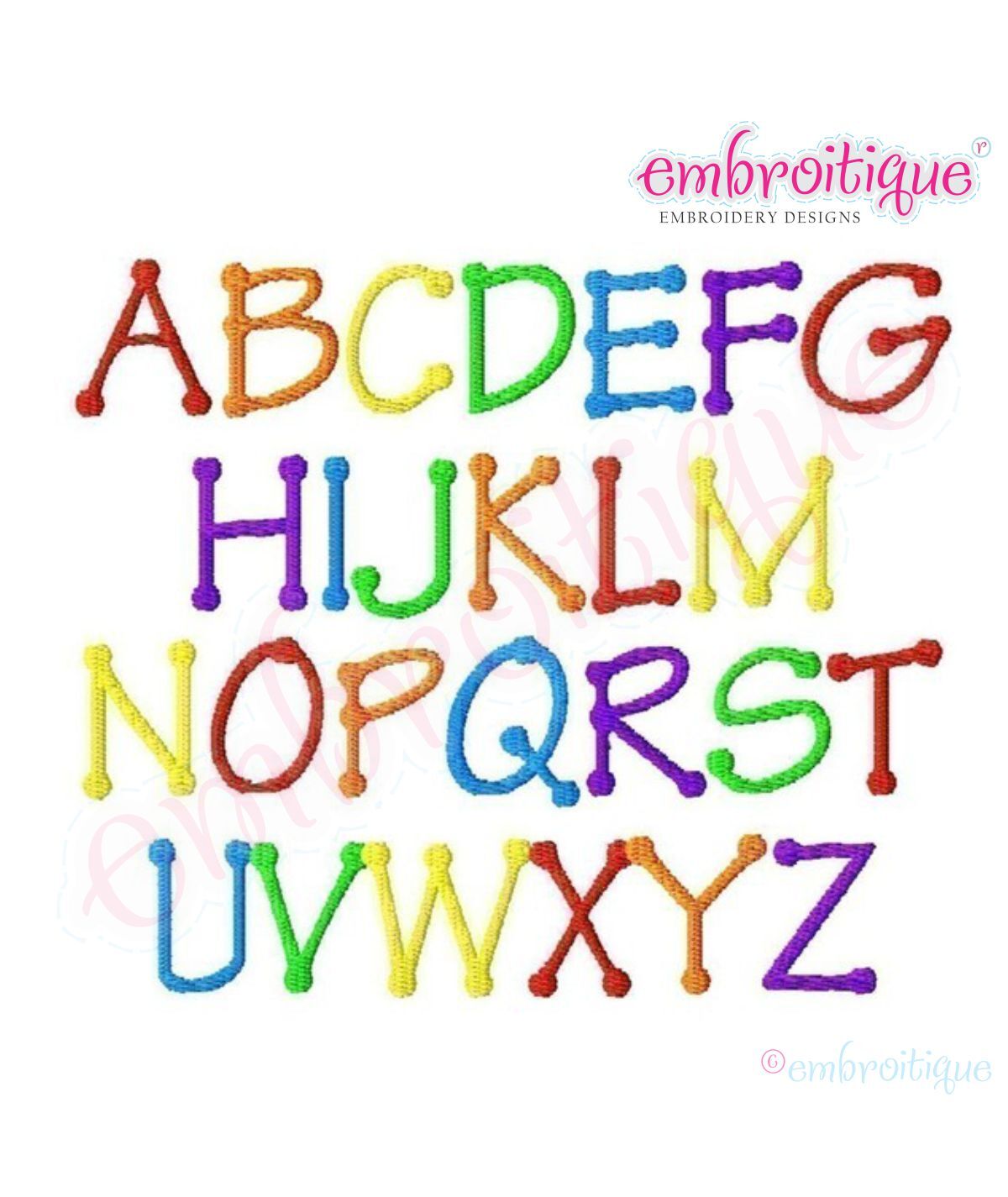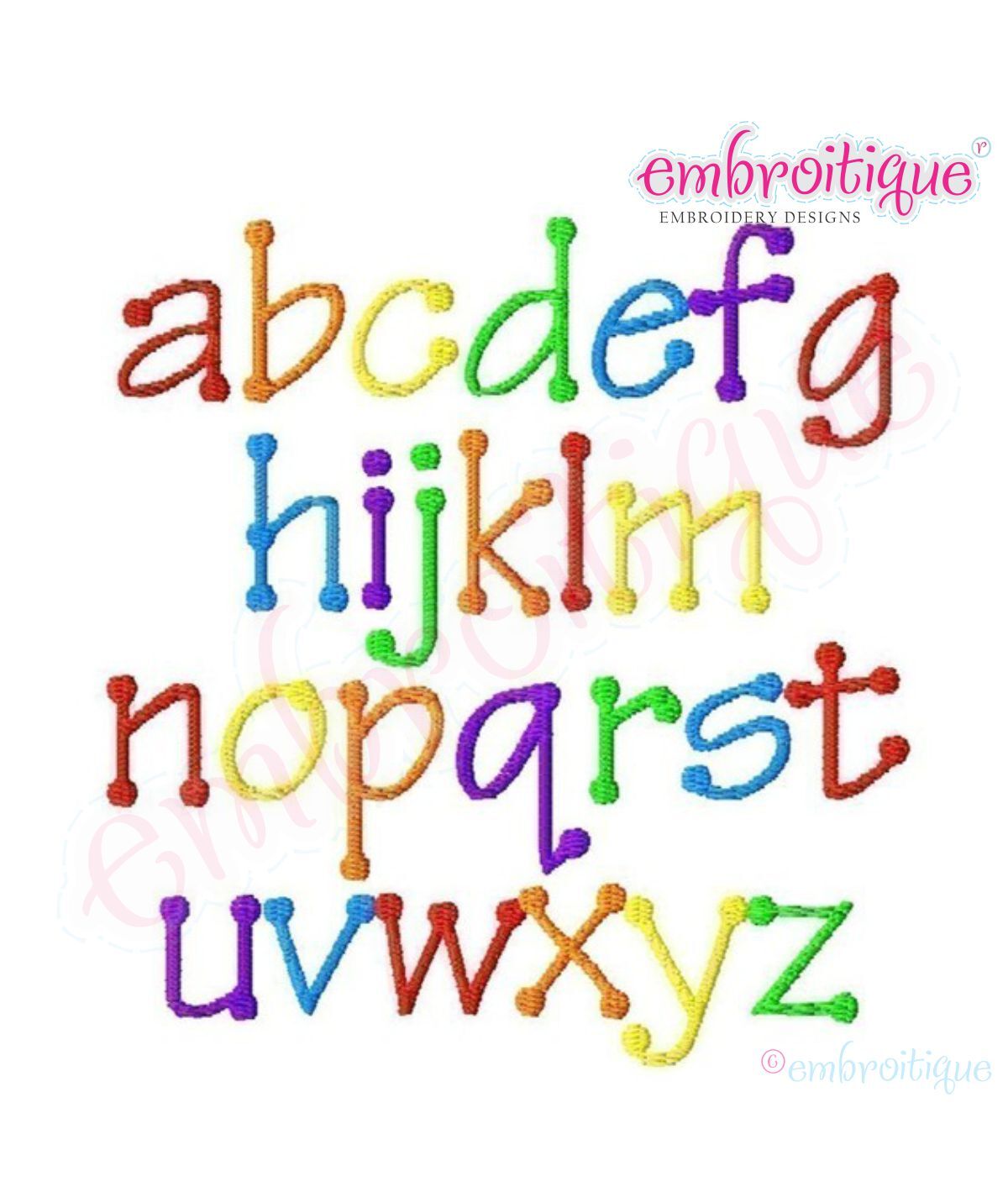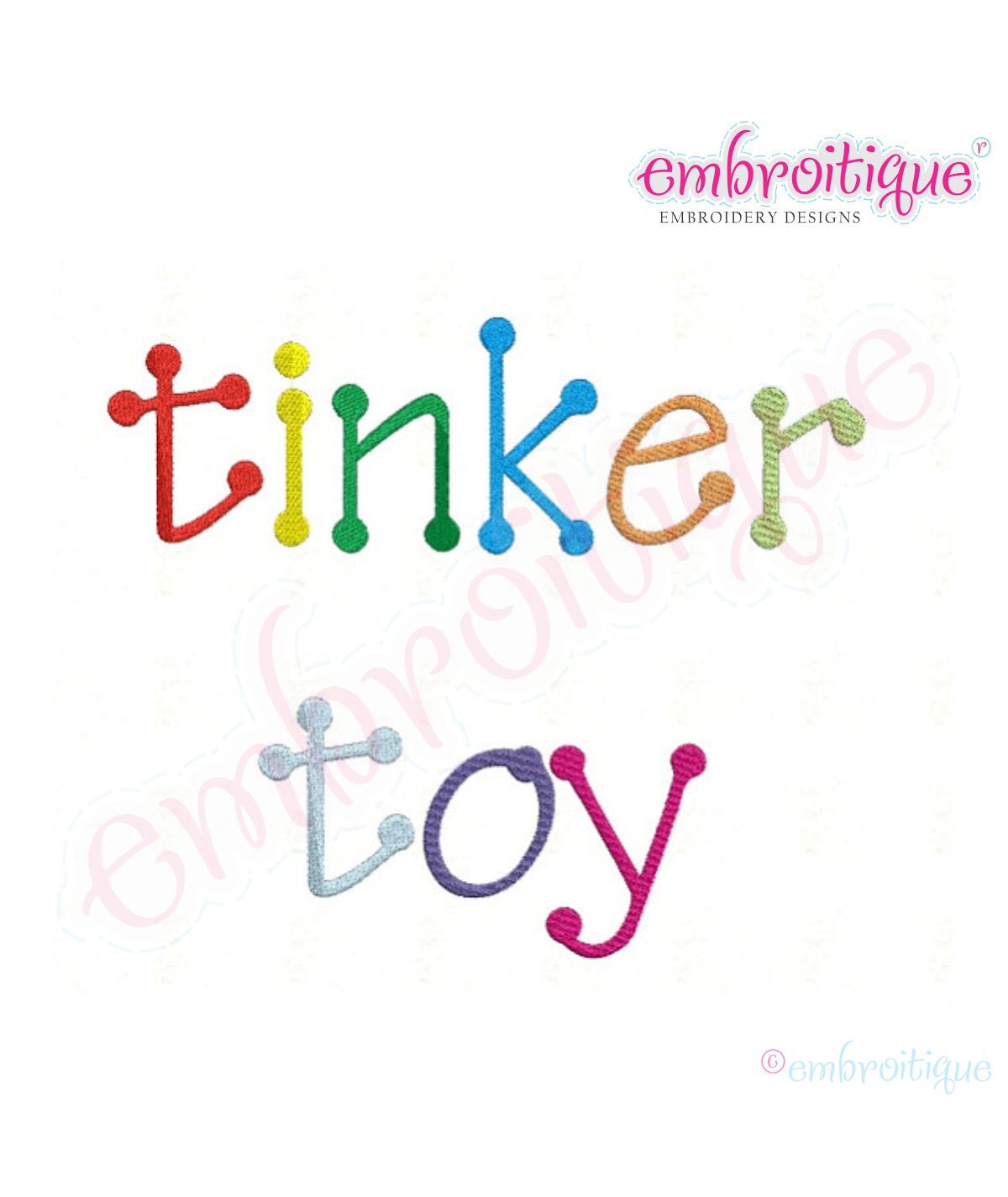
Tinker Toy Monogram Font Set
Super cute all by itself!  Or layer it with Big Tink Monogram Set!
Sizes: .5", 1", 2", 3" (Aa-Zz, Upper & Lower Case Letters)
.5 inch satin
1", 2", 3" patterned fill stitch